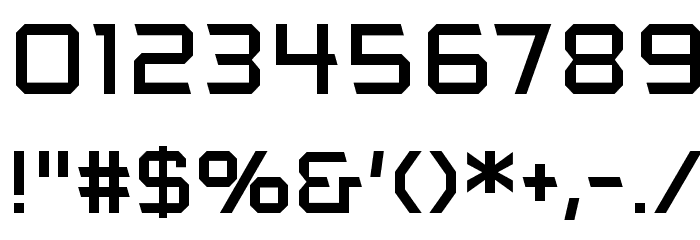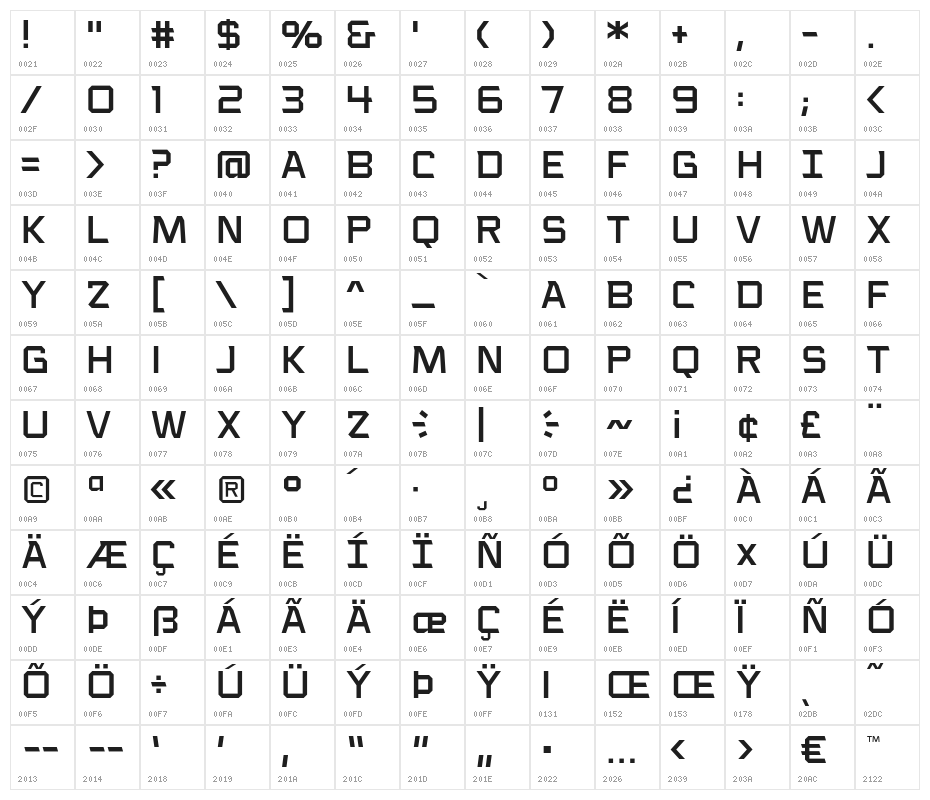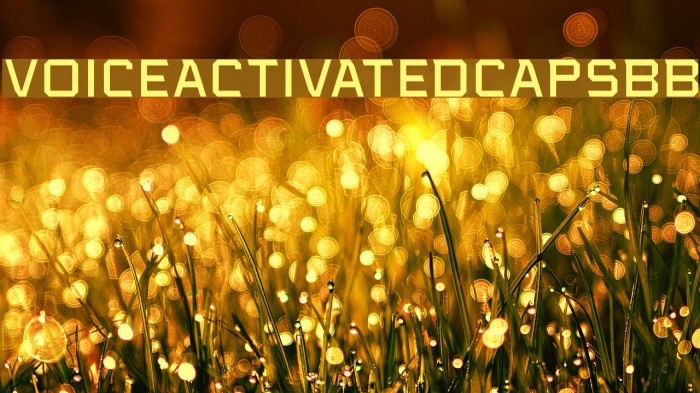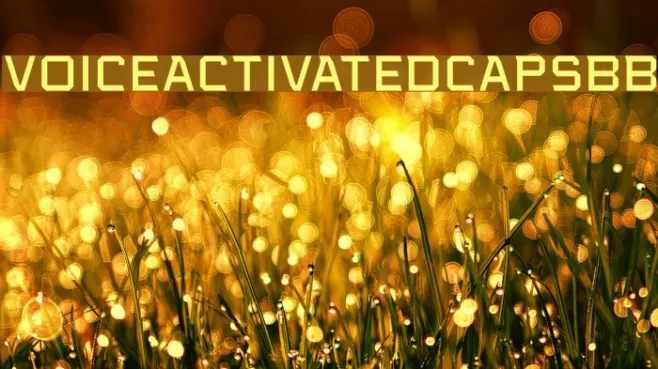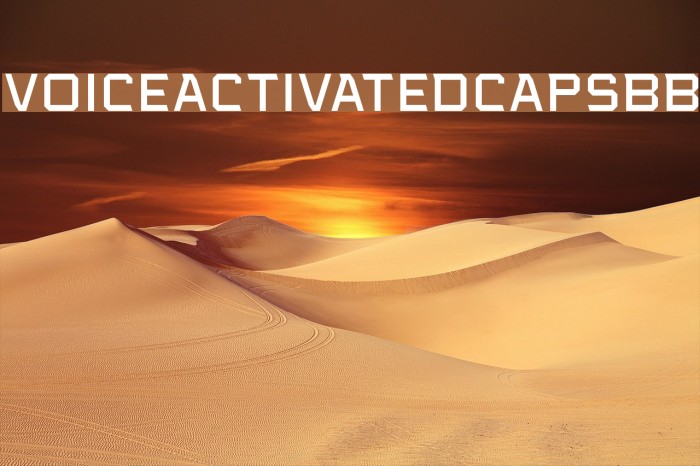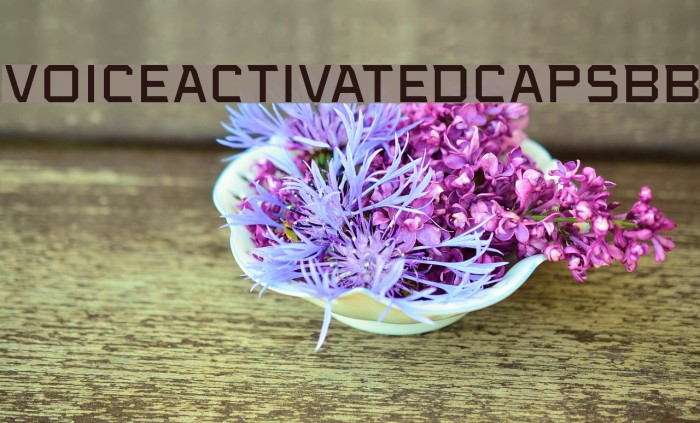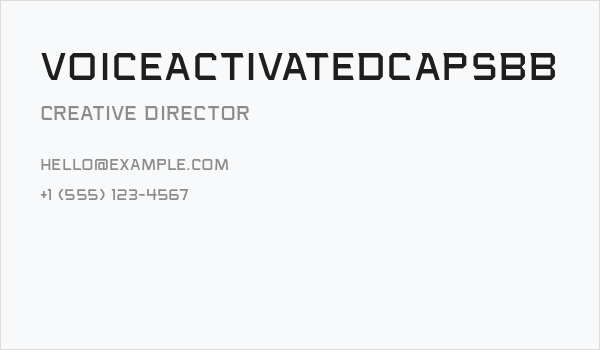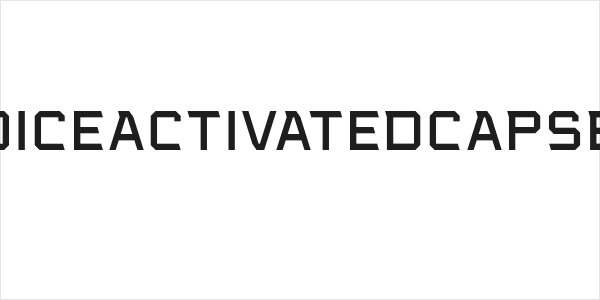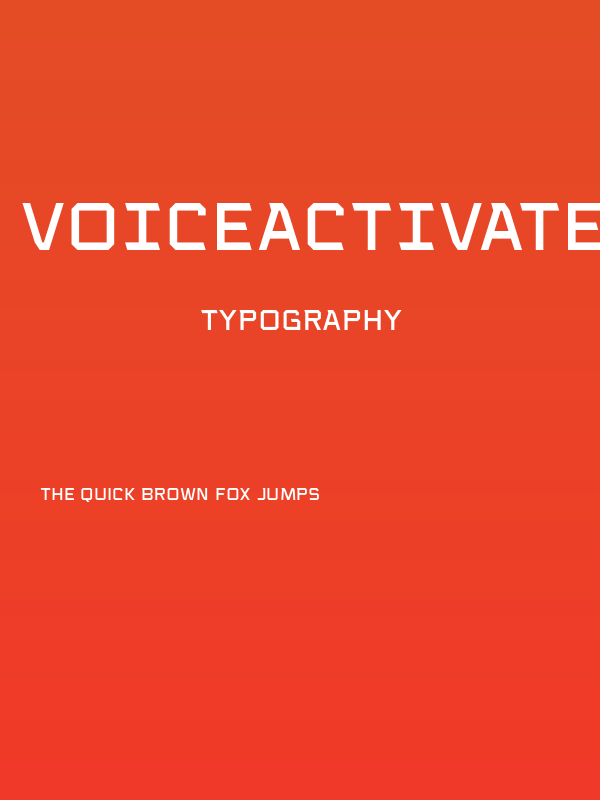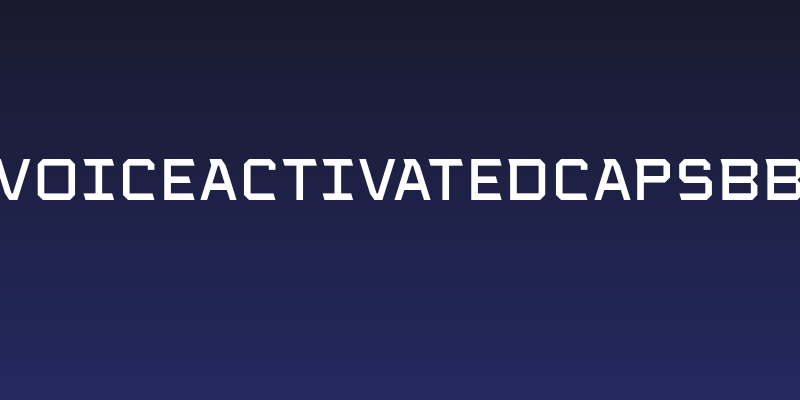
VoiceActivatedCapsBB Font
VoiceActivatedCapsBB Description
This font features a bold, geometric style with a modern and futuristic aesthetic. The characters are constructed with sharp angles and straight lines, giving them a structured and mechanical appearance. The uppercase and lowercase letters maintain a consistent height, contributing to a uniform look. The numerals and special characters follow the same design principles, ensuring cohesion across all glyphs. The overall design is clean and minimalistic, making it suitable for digital and print media where a contemporary and tech-inspired look is desired.
| Proposed Projects | Ideal for technology branding, digital interfaces, video game design, and futuristic-themed posters. |